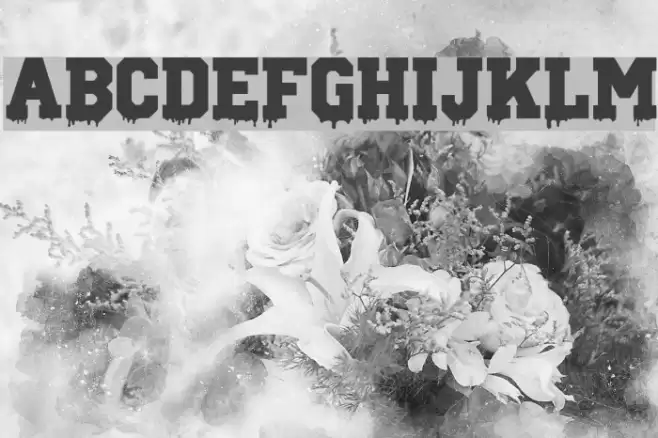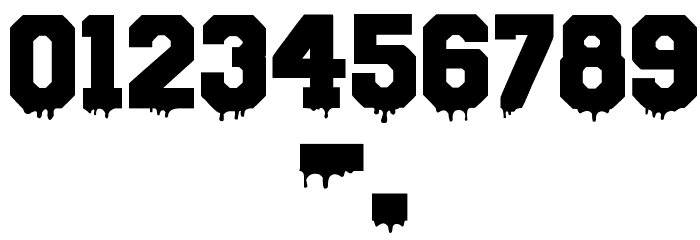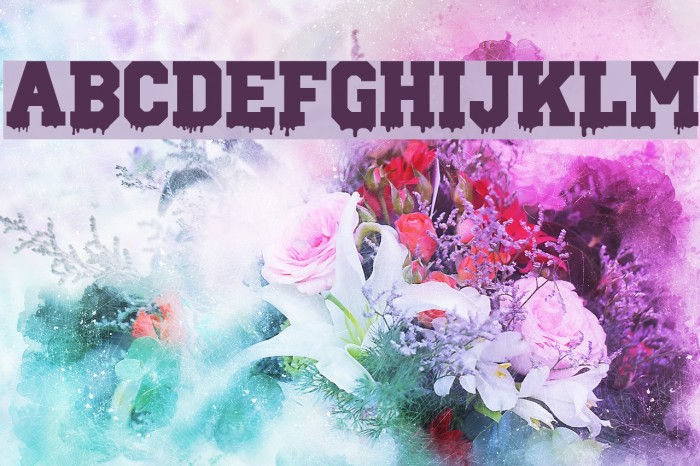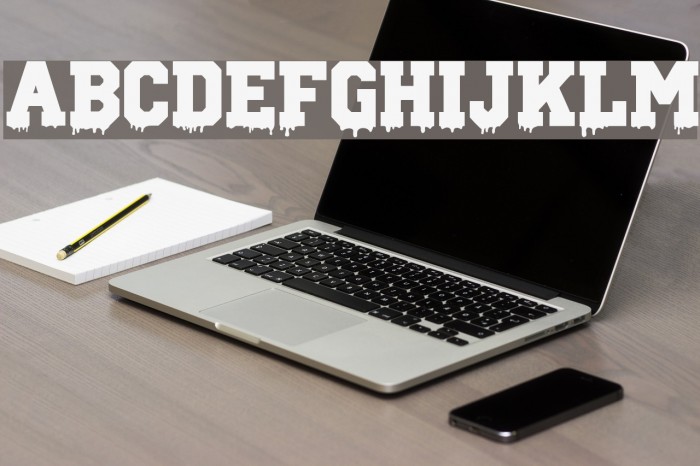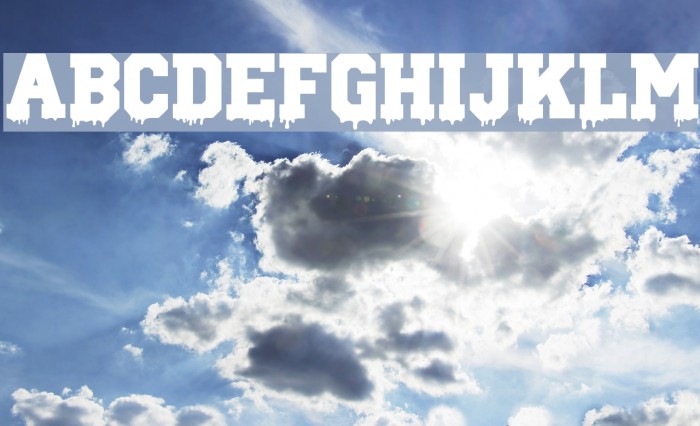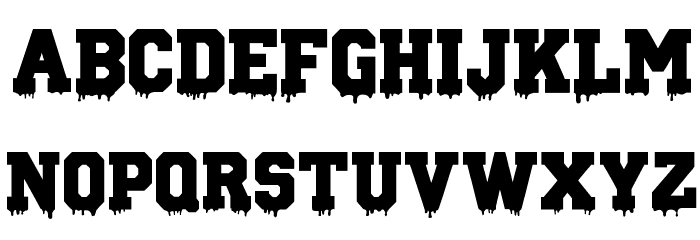
Gun School Font
Gun School Description
This font features a bold, dramatic style with a distinctive dripping effect at the bottom of each character, reminiscent of melting or dripping paint. The uppercase letters are robust and blocky, conveying a sense of strength and impact. The numbers follow the same bold design, ensuring consistency across all characters. The unique dripping detail adds a creative and edgy touch, making it ideal for projects that require a standout, artistic look. This font is perfect for creating eye-catching headlines, posters, or themed event materials where a bold statement is needed.
A bold, decorative font with a dripping effect for dramatic impact from Uncategorized fonts.
- Proposed Projects: Ideal for posters, event flyers, horror-themed designs, and any project needing a bold, artistic touch.
- Use Case: Headlines, Posters, Themed Events